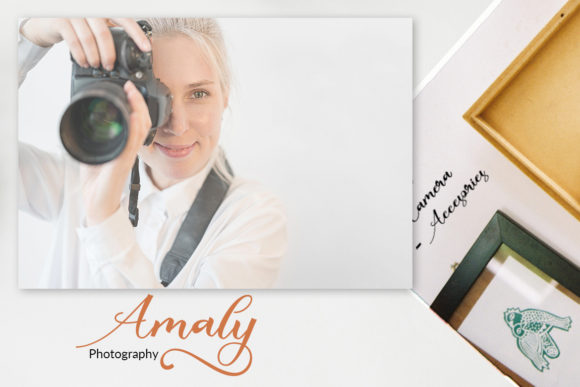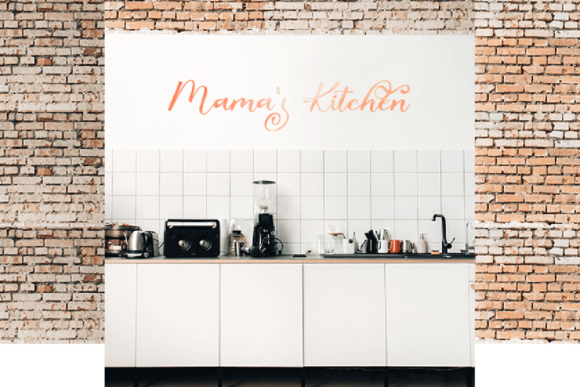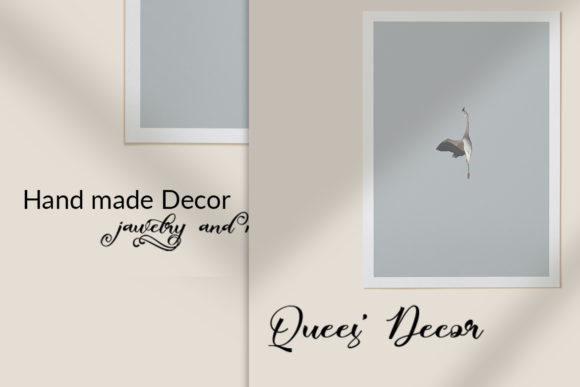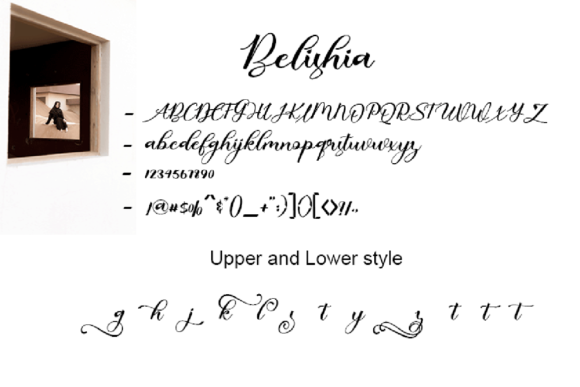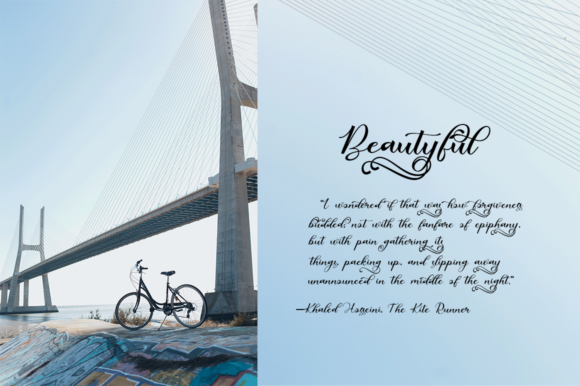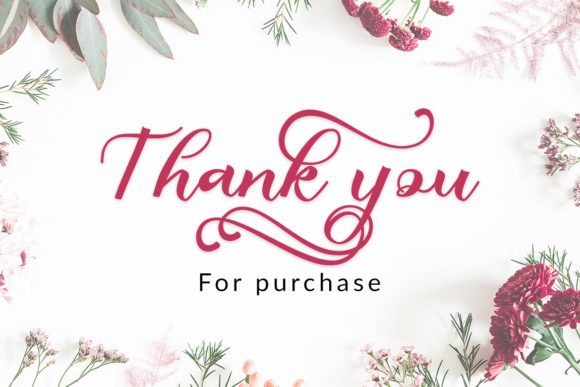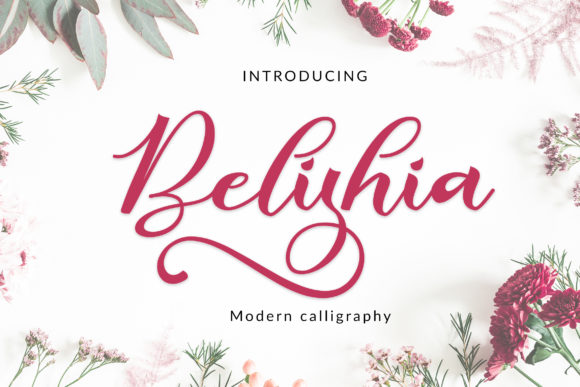
Introducing Belishia Font: The Perfect Handwritten Script for Your Creative Projects
Are you looking for a beautiful, flowing handwritten font to elevate your designs? Look no further than Belishia Font! This stunning script font features amazing swashes, stylistic sets, and stylistic alternates that will add a touch of elegance and sophistication to any project. In this article, we’ll dive into the world of Belishia Font and explore its features, uses, and benefits for designers and crafters.
What is Belishia Font?
Belishia Font is a modern handwritten script font that exudes a sense of authenticity and charm. Its flowing lines and cursive strokes give it a beautiful, organic feel that’s perfect for creating gorgeous wedding invitations, stunning stationary art, eye-catching social media posts, and cute greeting cards. Whether you’re a designer, crafter, or DIY enthusiast, Belishia Font is an excellent choice for adding a personal touch to your projects.
Key Features of Belishia Font
So, what makes Belishia Font so special? Here are some of its key features:
- Amazing Swashes: Belishia Font comes with a range of stunning swashes that can be used to add a touch of elegance to your designs. From simple, subtle swashes to more elaborate, decorative ones, there’s something for every project.
- Stylistic Sets: With Belishia Font, you get access to a range of stylistic sets that allow you to mix and match different letterforms, swashes, and other elements to create unique and personalized designs.
- Stylistic Alternates: In addition to its standard letterforms, Belishia Font also includes a range of stylistic alternates that can be used to add variation and interest to your designs.
Uses for Belishia Font
Belishia Font is an incredibly versatile font that can be used for a wide range of projects, including:
- Wedding Invitations: Create beautiful, bespoke wedding invitations that reflect the couple’s personal style and wedding theme.
- Stationary Art: Use Belishia Font to create stunning stationary art, including greeting cards, thank you cards, and postcards.
- Social Media Posts: Add a touch of elegance and sophistication to your social media posts with Belishia Font.
- Greeting Cards: Create cute and personalized greeting cards for special occasions, such as birthdays, anniversaries, and holidays.
So, why should designers and crafters choose Belishia Font for their projects? Here are some benefits:
- Customization: With its range of swashes, stylistic sets, and stylistic alternates, Belishia Font offers endless possibilities for customization.
- Unique Designs: Belishia Font allows you to create unique and personalized designs that stand out from the crowd.
- Time-Saving: With Belishia Font, you can create stunning designs in no time, saving you time and effort.
In conclusion, Belishia Font is a beautiful, flowing handwritten font that’s perfect for designers and crafters looking to add a touch of elegance and sophistication to their projects. With its amazing swashes, stylistic sets, and stylistic alternates, Belishia Font offers endless possibilities for customization and creativity. Whether you’re creating wedding invitations, stationary art, social media posts, or greeting cards, Belishia Font is an excellent choice. So why wait? Fall in love with Belishia Font and start creating gorgeous designs today!